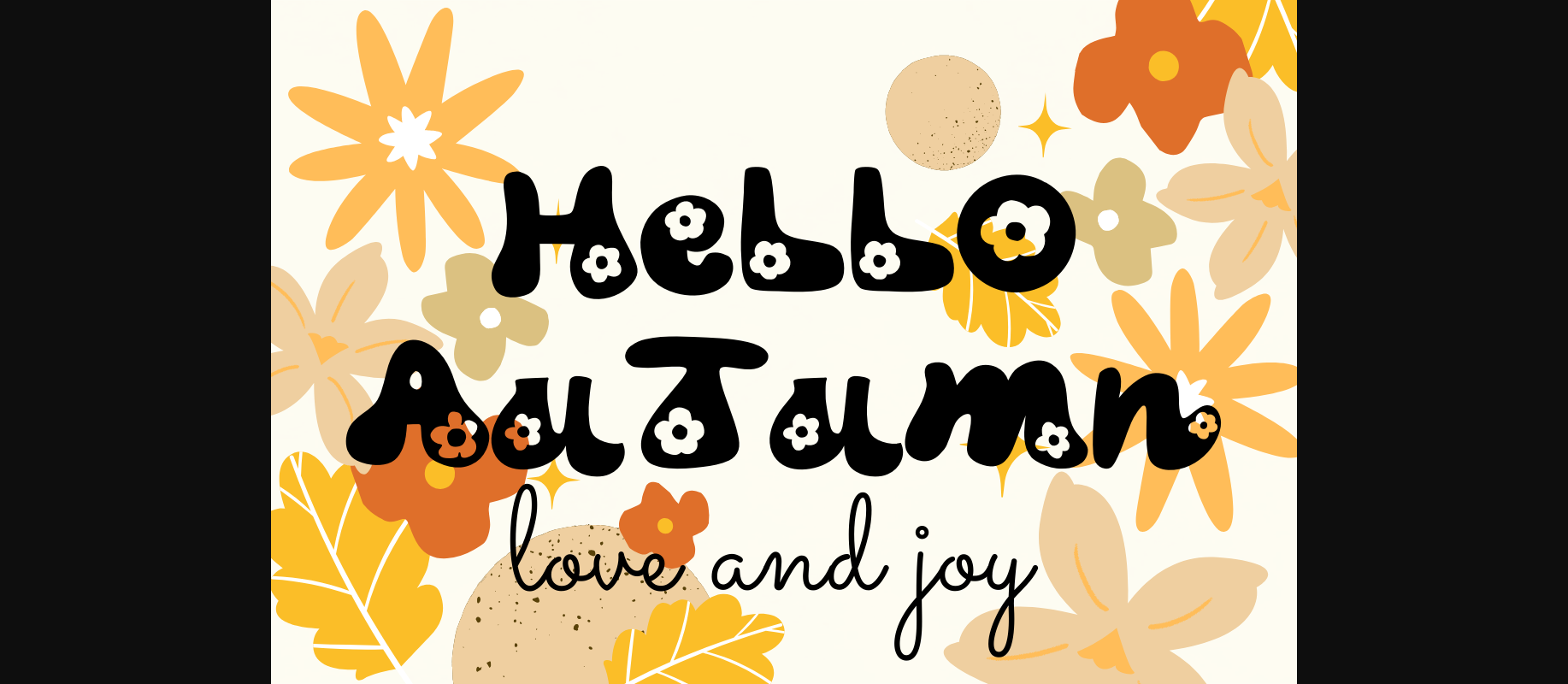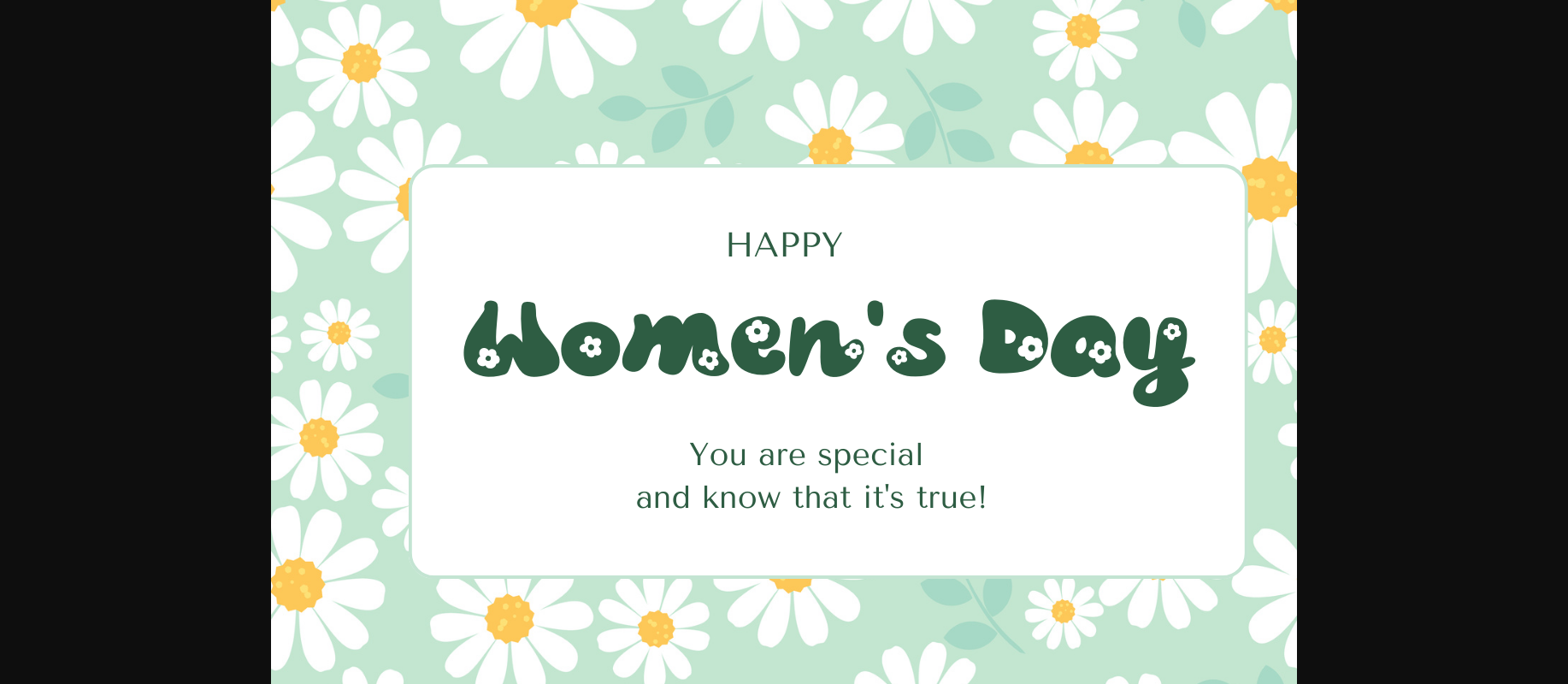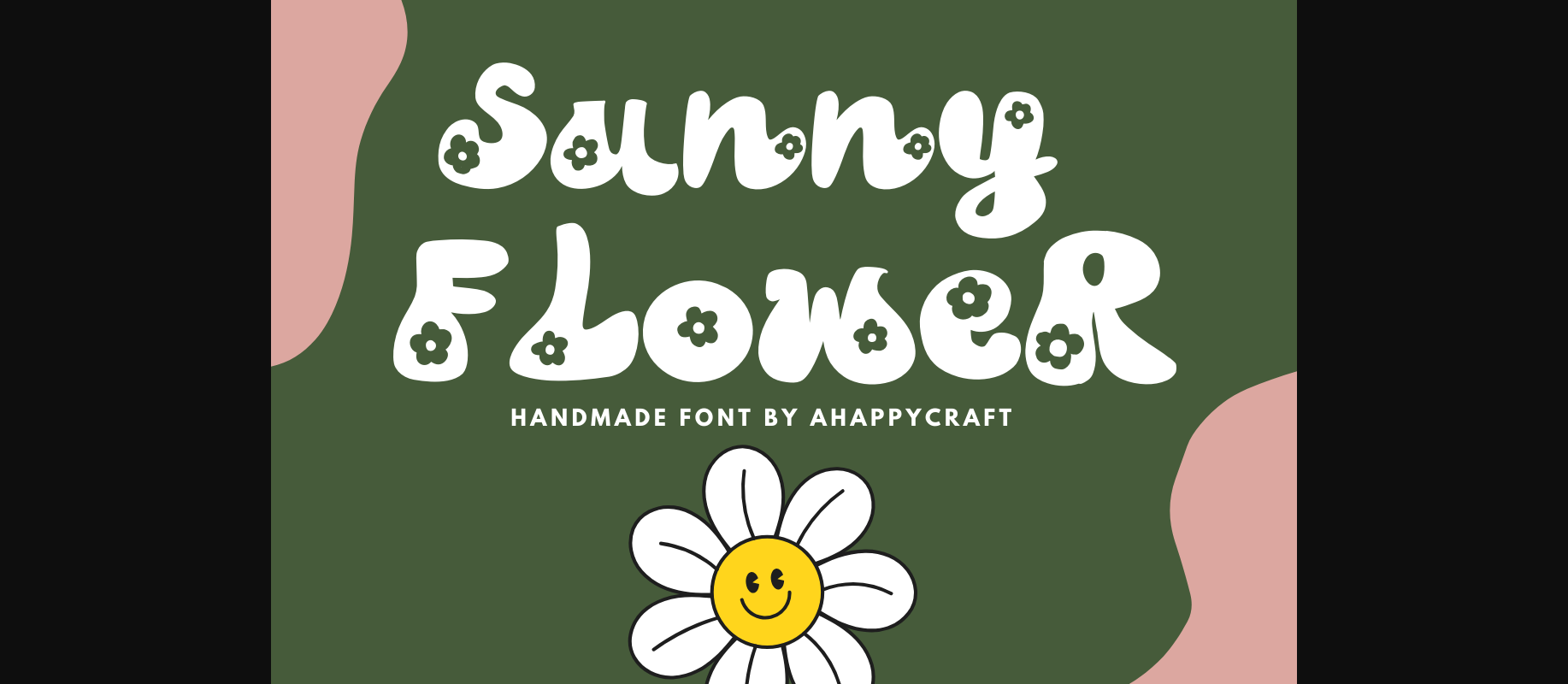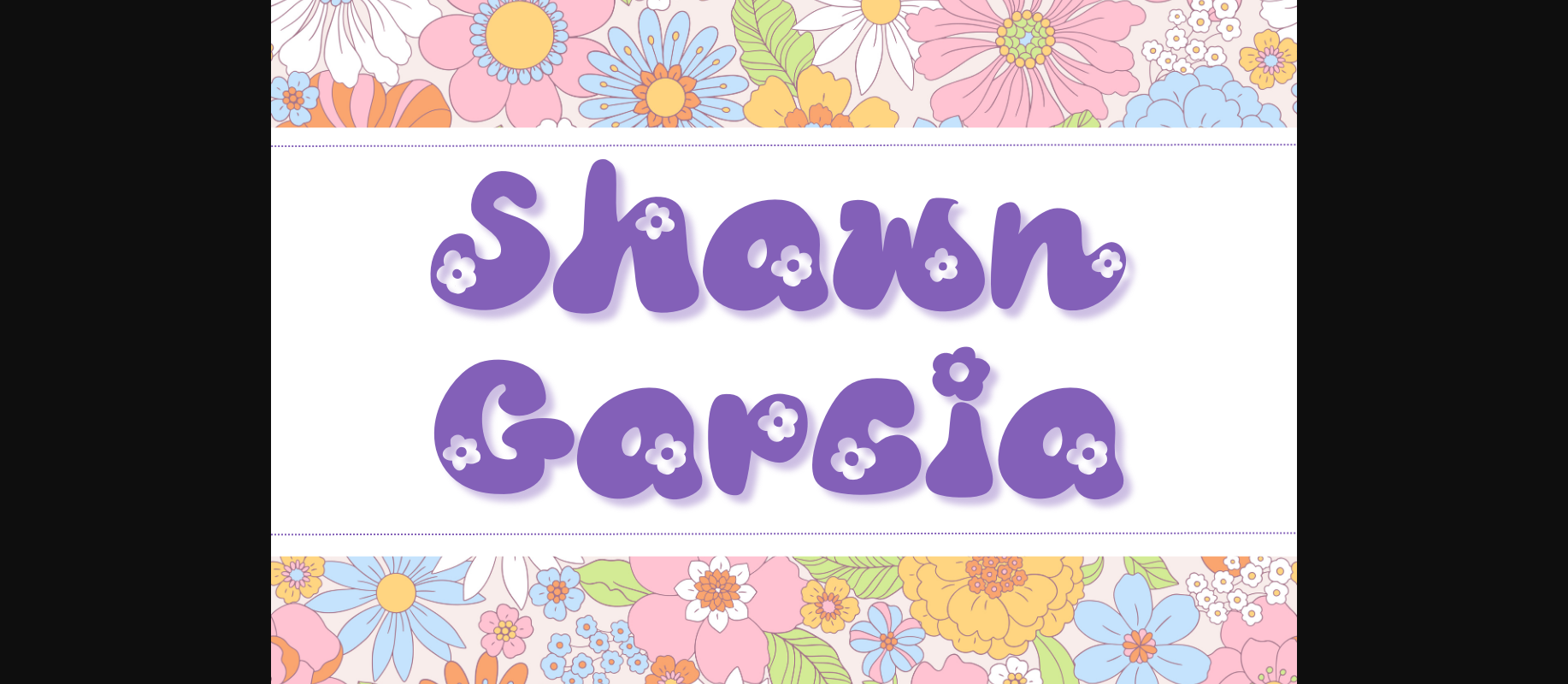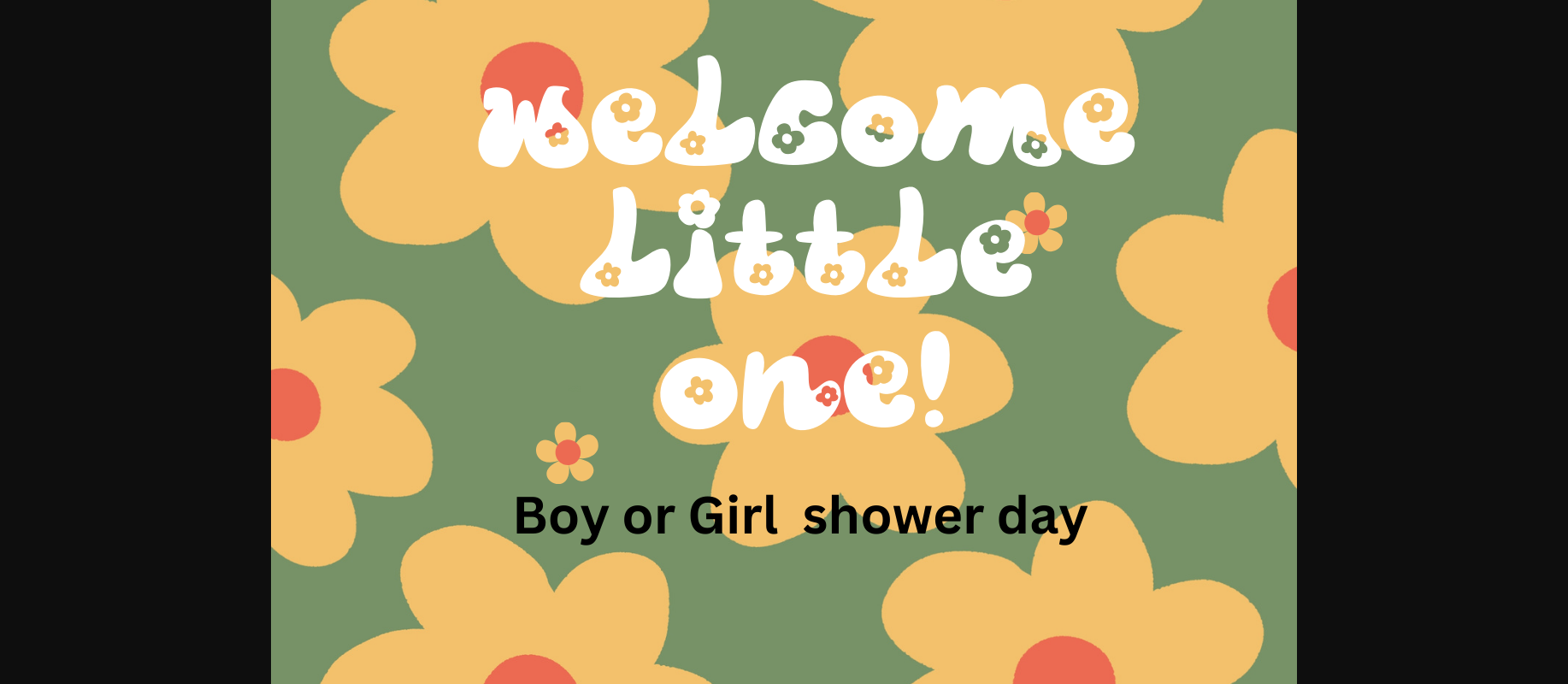
About Sunny Flower Font
Sunny Flower font is a handmade cute font. It’s a fresh and lovely font with flowers inside the alphabet.
It’s very nice for your project and nice for print on any surface such as..tote bag, t-shirt, mug, cup, or book’s cover.